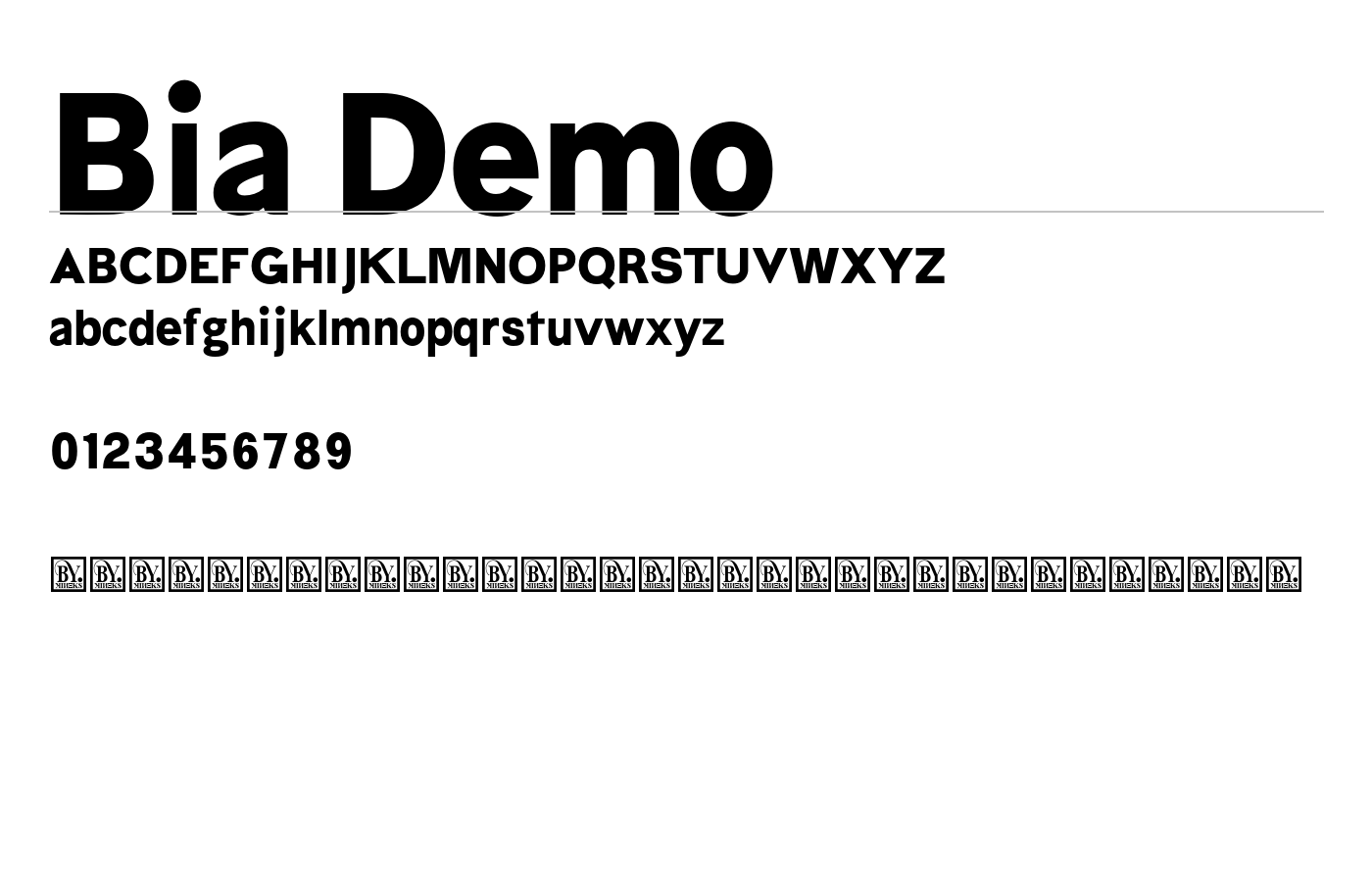
Bia Demo is a bold, modern sans-serif font with a strong, clean presence and a compact, slightly condensed width. Its high x-height and uniform stroke weight make it highly legible and impactful, ideal for headlines, branding, and editorial use where clarity and confidence are key. This font conveys a professional, contemporary vibe suitable for brands and projects seeking a straightforward yet powerful typographic voice.
Bia Demo Font
About Bia Demo Font
| Font family | Bia Demo Font |
| Designer | Dede urniawan |